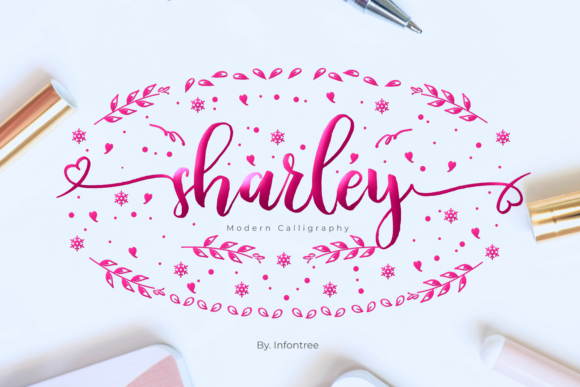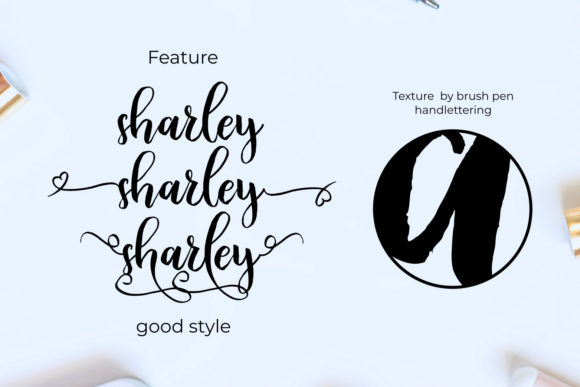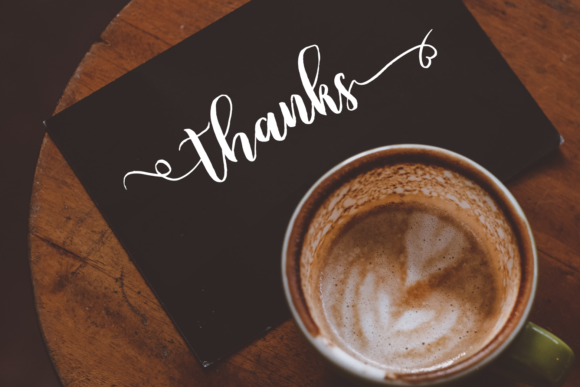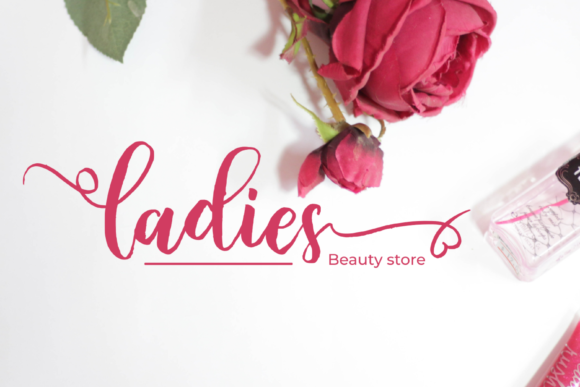
About Sharley Font
Sharley is a romantic handwritten font. It looks beautiful on a variety of designs requiring a personalized style, such as wedding invitations, thank you cards, weddings, greeting cards, logos and so on. This font is PUA encoded which means you can access all of the glyphs and swashes with ease!